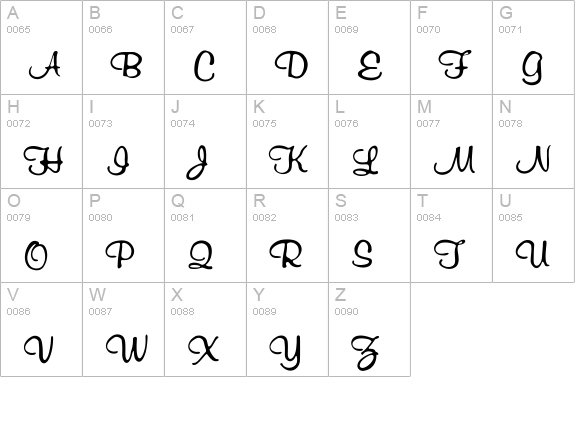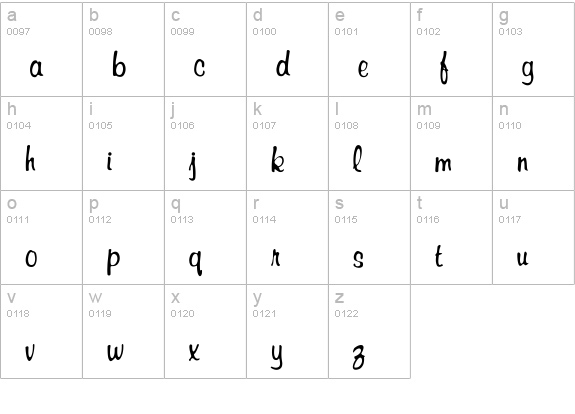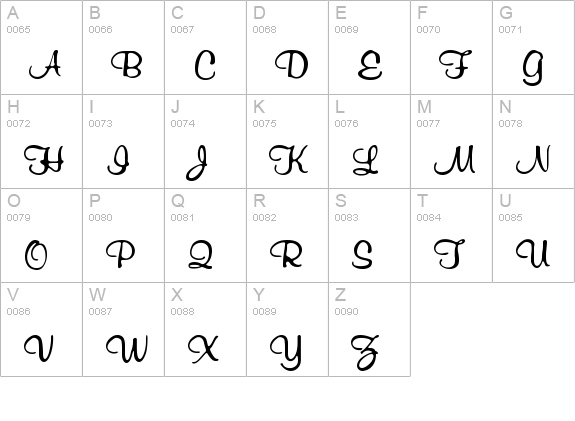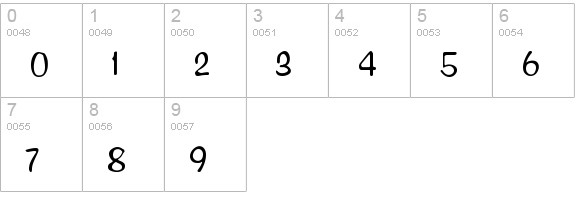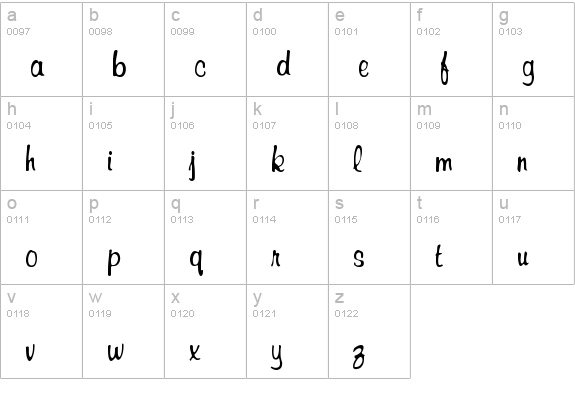
ThomassMurrayay Font Details
ThomassMurrayay font is a stunning and distinctive typeface that exudes elegance and sophistication. With its sleek lines and graceful curves, this font is perfect for adding a touch of class to any project. Whether you're designing a logo, creating a book cover, or crafting beautiful typography for a website, ThomassMurrayay font is sure to make a lasting impression. What sets ThomassMurrayay font apart is its unique combination of modern simplicity and timeless beauty. The clean, crisp letterforms are expertly crafted, resulting in a font that is both easy to read and visually captivating. It strikes the perfect balance between being bold and commanding attention, while also maintaining a sense of refinement and subtlety. One of the standout features of ThomassMurrayay font is its versatility. It is well-suited for a wide range of design projects, whether you're going for a minimalistic look or a more elaborate and ornate style. The font's versatility extends to its extensive character set, which includes a variety of ligatures, alternate characters, and special symbols, allowing you to truly make your designs unique. But perhaps the best part about ThomassMurrayay font is that it is free. That's right, this stunning typeface is freely available to download at FontsMarket.com. This means that you can bring a touch of elegance and sophistication to your designs without having to spend a fortune on expensive fonts. Whether you're a professional designer or a hobbyist, ThomassMurrayay font is a must-have addition to your font collection. So why wait? Download ThomassMurrayay font today and elevate your designs to a whole new level of sophistication. With its timeless beauty and versatility, this font is sure to become a staple in your creative arsenal. Don't miss out on the opportunity to add a touch of class to your projects - get ThomassMurrayay font now, exclusively at FontsMarket.com.